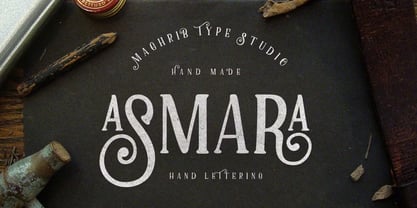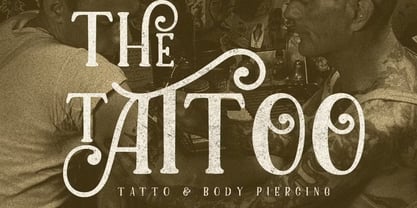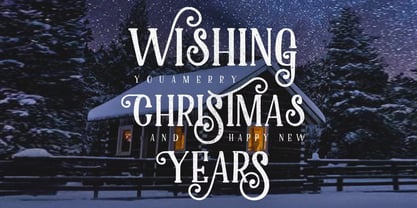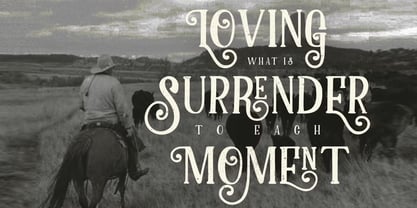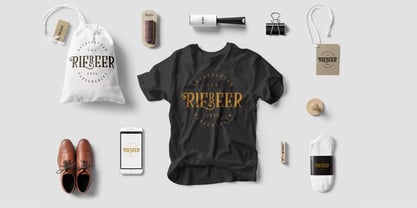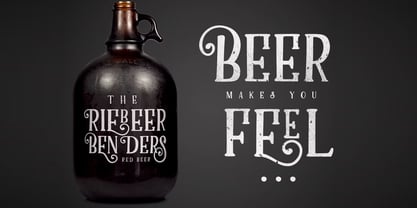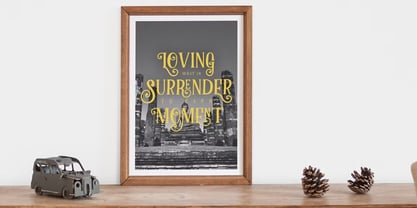
Asmara
by Maghrib Type
The Asmara Font Family was designed by Rizky Setyaludin and published by Maghrib Type. Asmara contains 1 styles.
Asmara is a handmade typeface that blends classic elegance with a touch of modern decorative flair. Designed to bring a timeless and artistic feel to your work, this font combines bold letterforms with graceful swirls, making it both distinctive and memorable.
Perfectly crafted for versatility, Asmara works beautifully across various design needs such as branding, packaging, posters, wedding invitations, vintage logos, and expressive quotes. Each curve and detail is carefully designed to capture the warmth and authenticity of true hand lettering.
With its unique personality, Asmara will effortlessly elevate your designs, giving them a sophisticated and eye-catching charm.
If you’re looking for a font that stands out while adding character and sophistication, Asmara Typeface is the perfect choice.